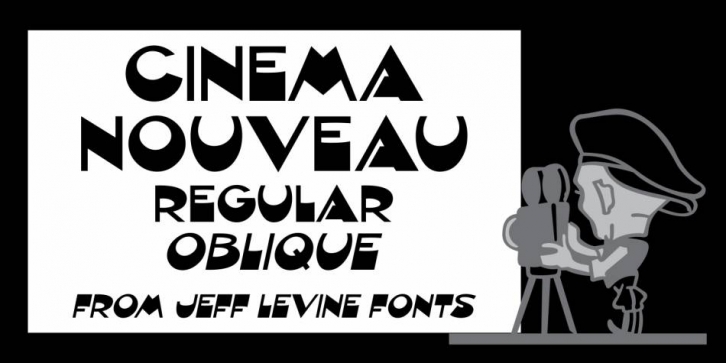
Designed by Jeff Levine, Cinema Nouveau JNL is an art nouveau font family. This typeface has two styles and was published by Jeff Levine Fonts.
Shadowland was a magazine dedicated to the arts, and was published from 1919 through 1923. The lettering for its masthead was hand lettered in a then-contemporary Art Nouveau style.
Although the photoplay (movies) was just an incremental part of the magazine’s overview of the arts, the digital version of the type design has been named Cinema Nouveau JNL, and is available in both regular and oblique versions.